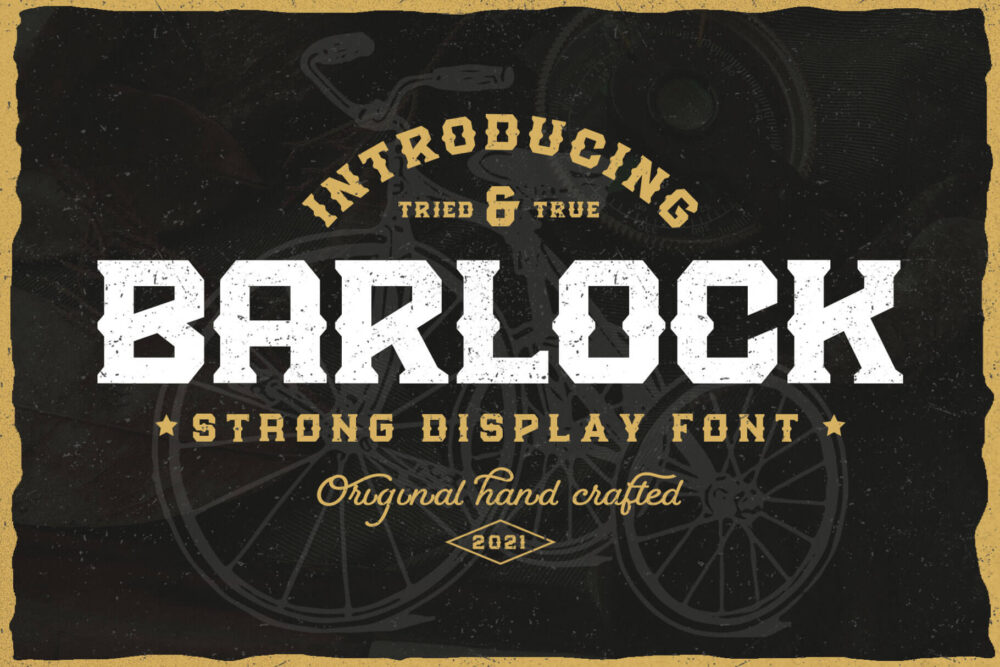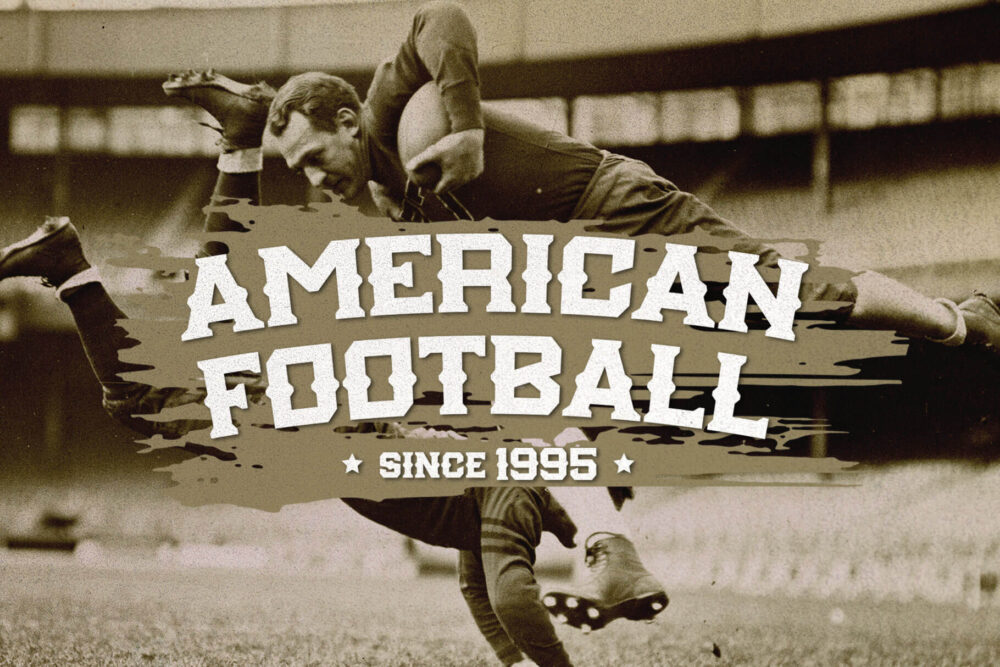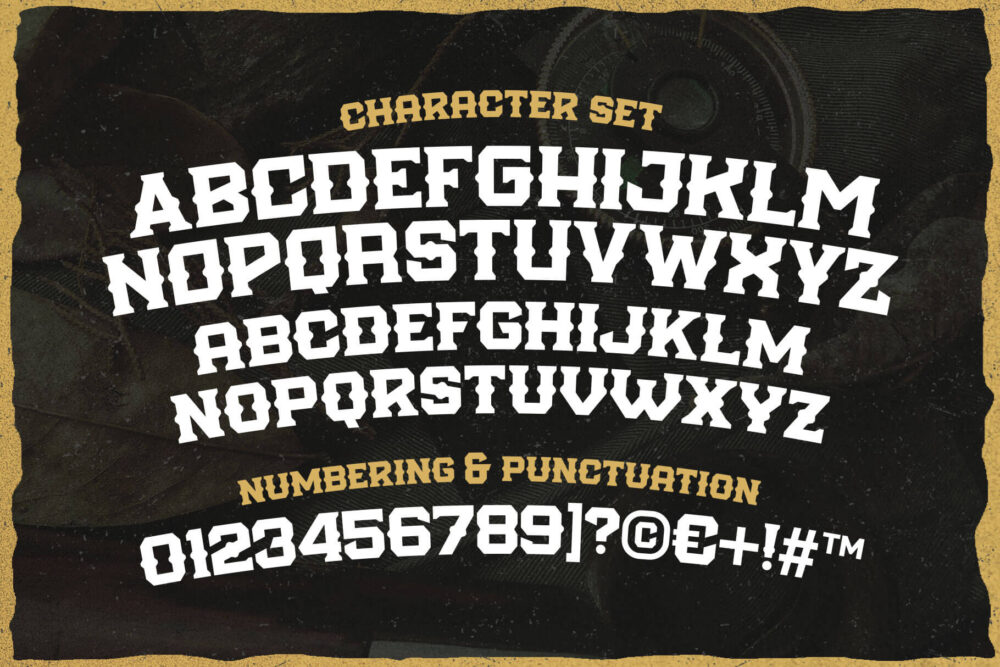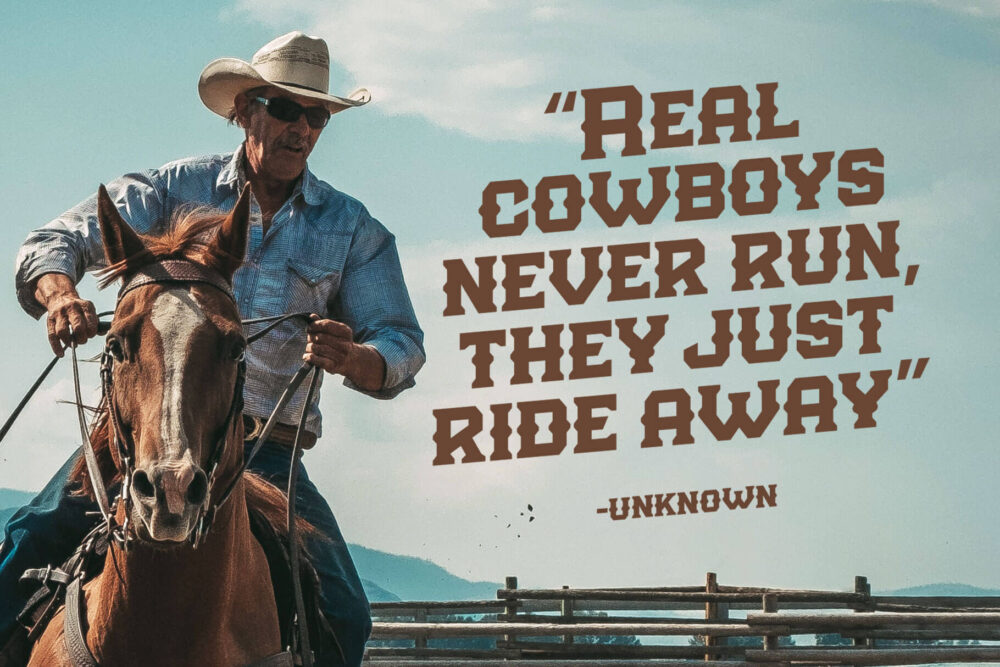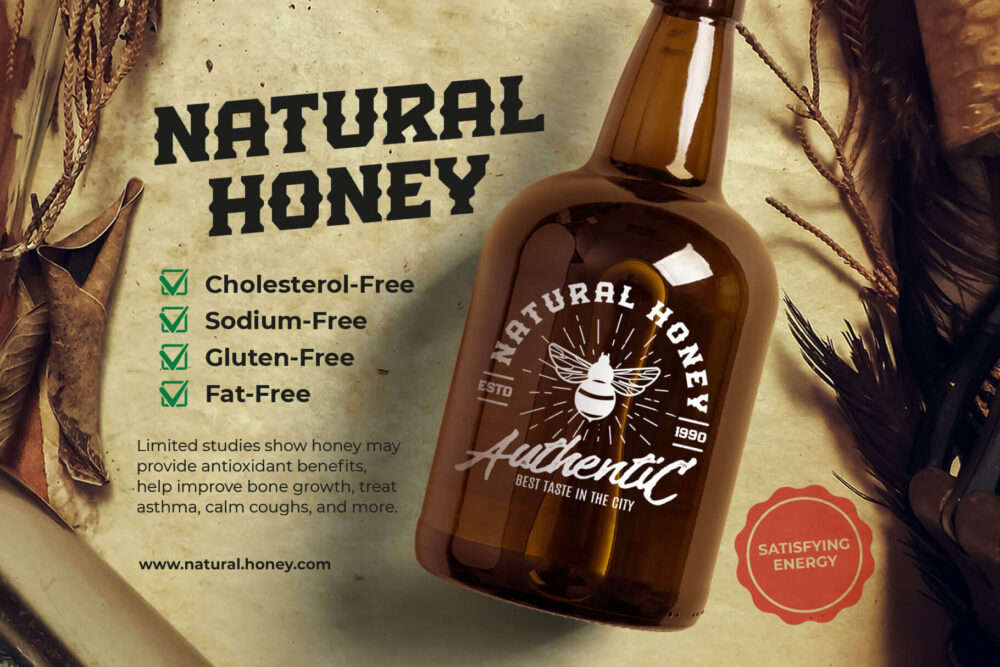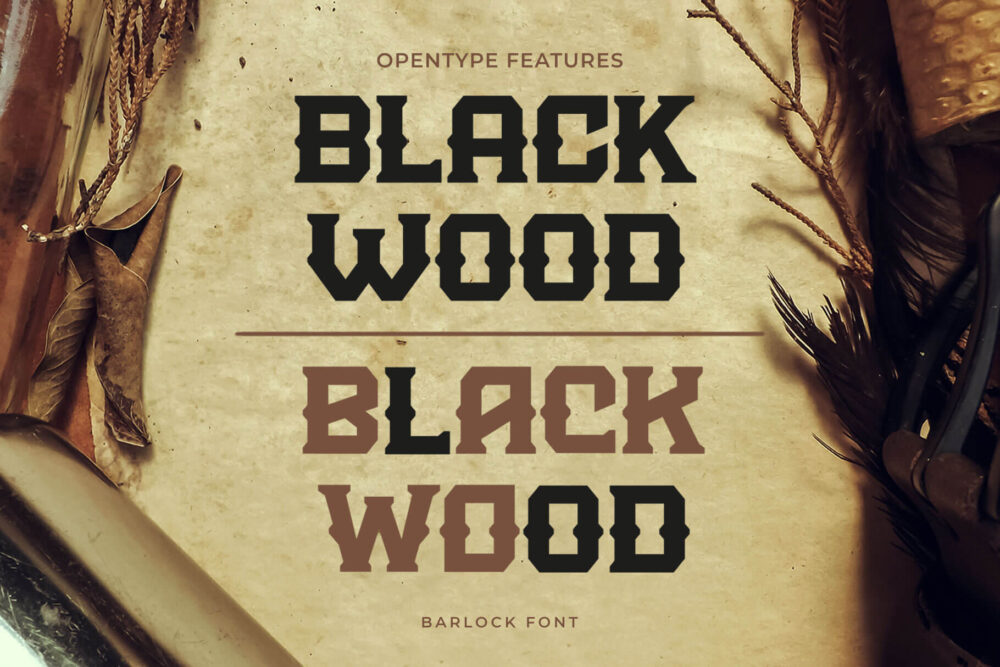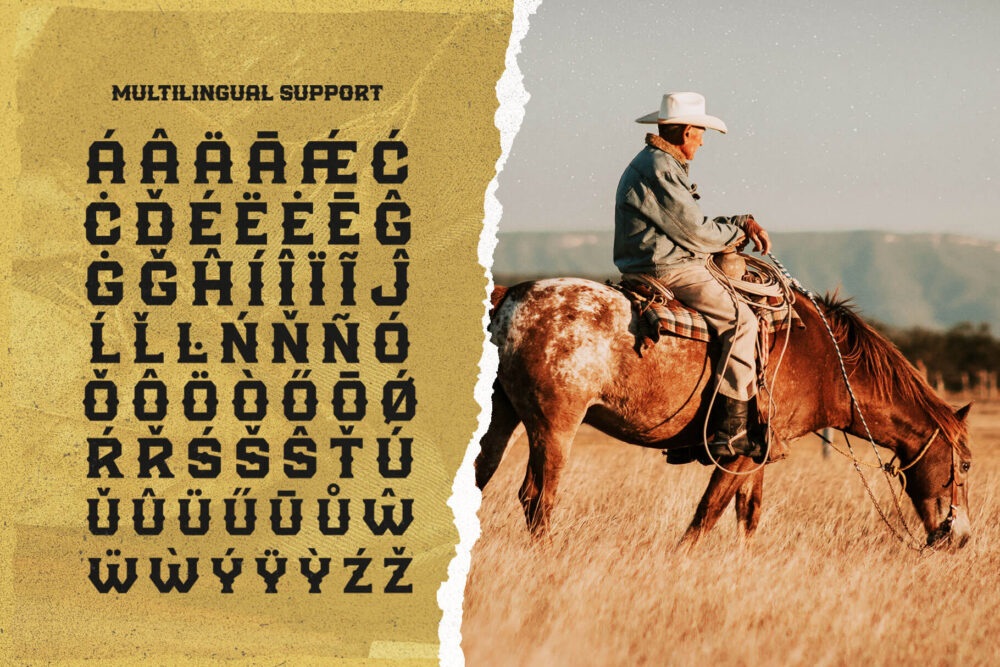
Introducing Barlock a strong display font, inspired by sports design and old school typography. Carefully designed with the curve-less of the letterform but not cubistic, and has a bold weight that suitable for an elegant-strong design.
Barlock is an all-caps font equipped with a bunch of alternates characters that you can mix and match to your design concept. A perfect choice for logo, posters, apparel, labels, jersey, headline, quotes, books, packaging, and many more!
- Uppercase
- Smallcaps
- Numbers
- Symbols & punctuation
- Multilingual
- Stylistic set 01-03